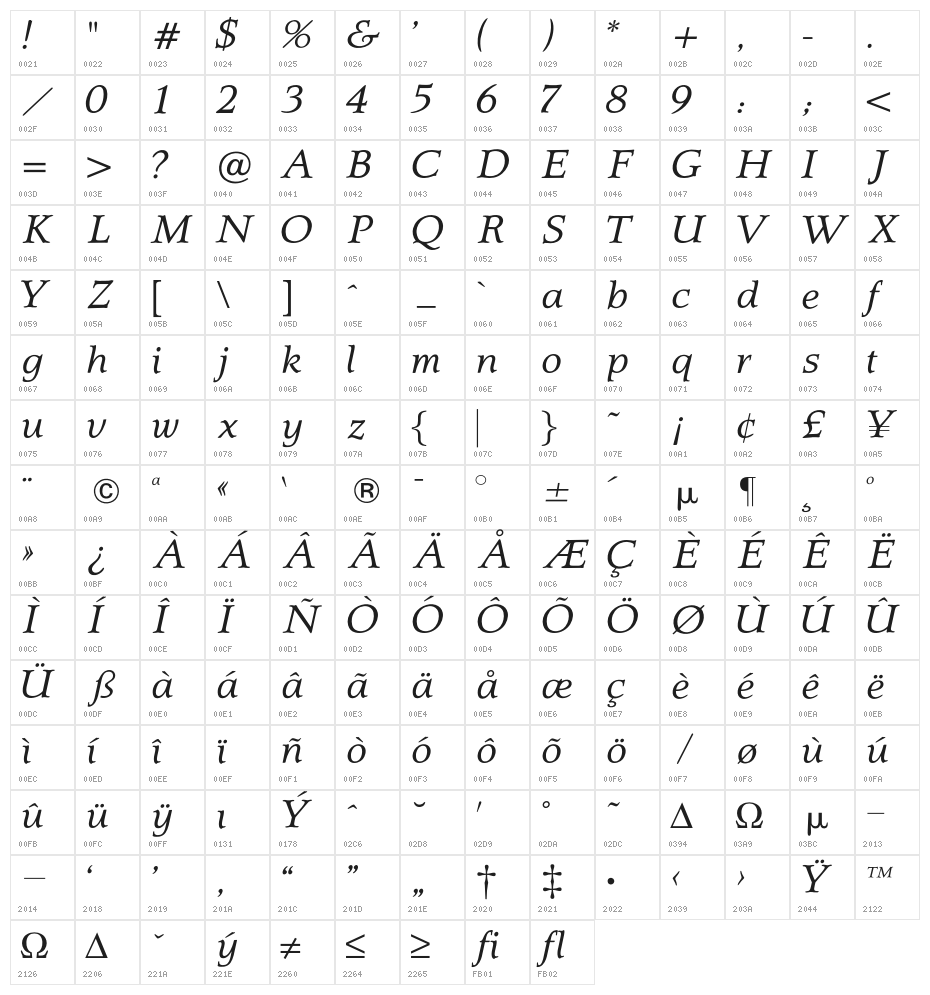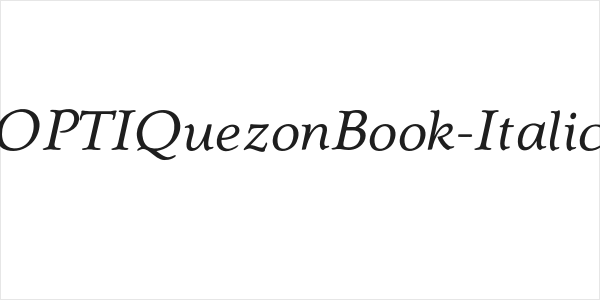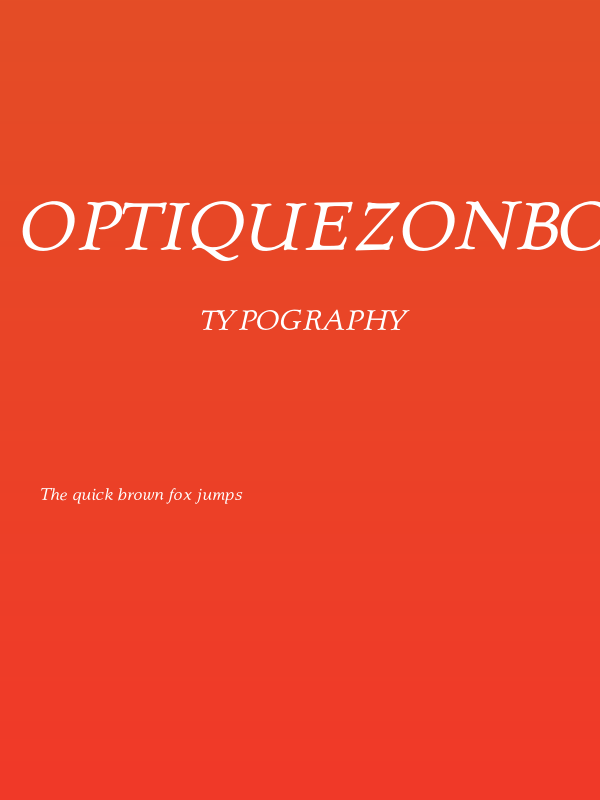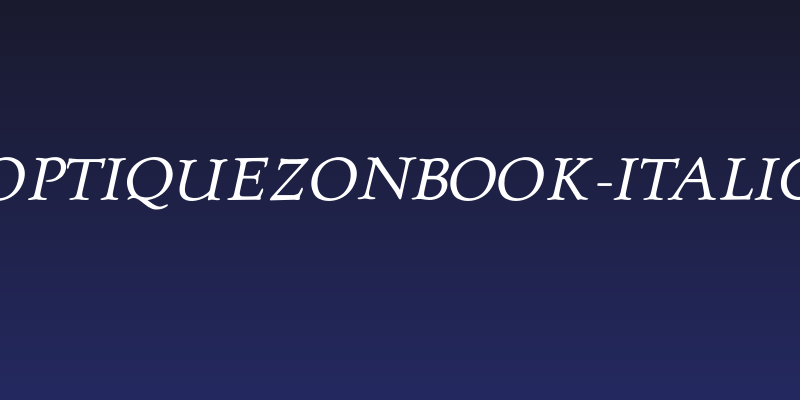
OPTIQuezonBook-Italic Font
OPTIQuezonBook-Italic Description
This font exhibits a classic and elegant italic style, characterized by its smooth, flowing lines and slight slant to the right. The serifs are subtle yet distinct, adding a touch of sophistication to each character. The uppercase letters are well-proportioned, with a graceful curve that enhances readability. Lowercase letters maintain a consistent style, with gentle curves and a harmonious balance. The numerals are clear and legible, matching the overall aesthetic of the font. Special characters are thoughtfully designed, ensuring they integrate seamlessly with the rest of the typeface. This font's refined appearance makes it suitable for a variety of applications where elegance and readability are paramount.